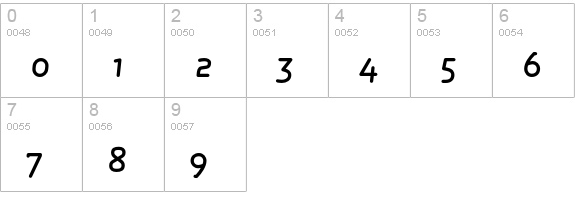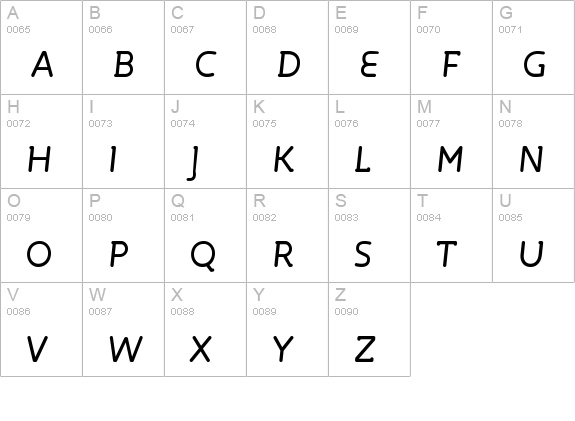
Roice-MediumItalic is a stylish and elegant font that exudes sophistication and modernity. Its sleek design and smooth curves make it perfect for a wide range of design projects, from branding to editorial layouts. The italicized version adds a touch of flair and personality to any text. The best part? Roice-MediumItalic is available for free download at FontsMarket.com. This means you can easily access this beautiful font and use it in your projects without any cost. Whether you're working on a professional presentation or a creative design, Roice-MediumItalic is sure to elevate your work with its unique charm and versatility. Download it now and add a touch of class to your designs!